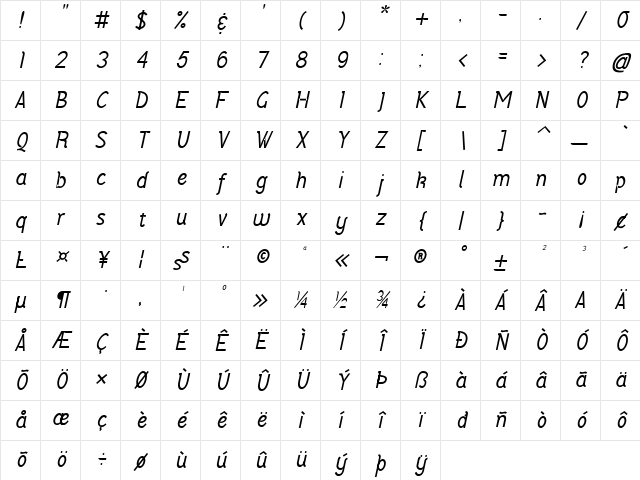
Complete Vercingtorix Italic glyph index. Displaying only characters natively supported by Vercingtorix Italic font.
Vercingtorix is a composed and adaptable typeface that performs quietly and consistently across a wide range of design contexts. The slanted form adds forward momentum and visual energy.
Pro Tip: Use Vercingtorix for emphasis, pull quotes, and subheadings where its slanted energy can add rhythm to the layout.